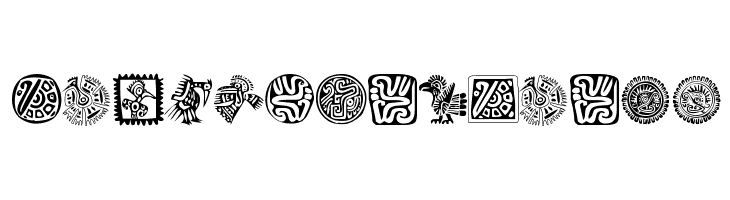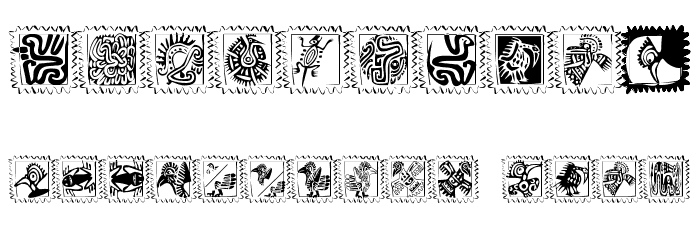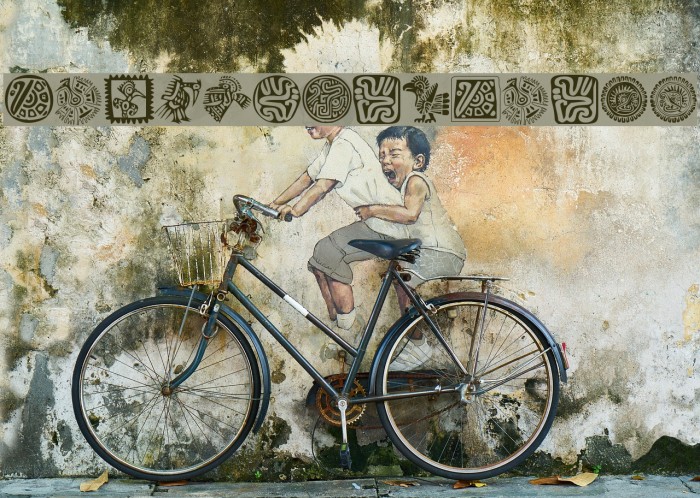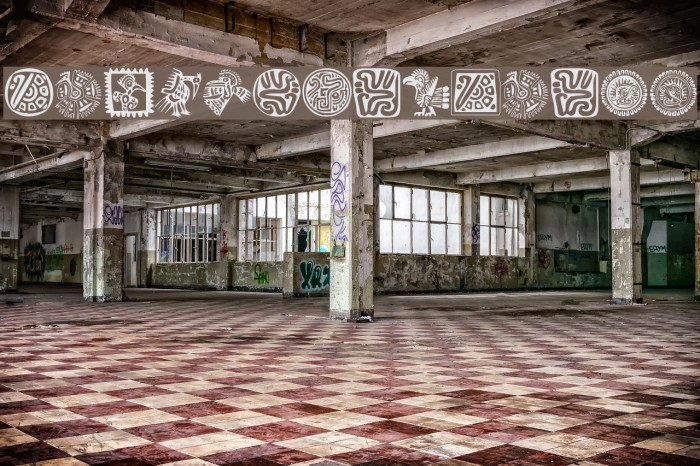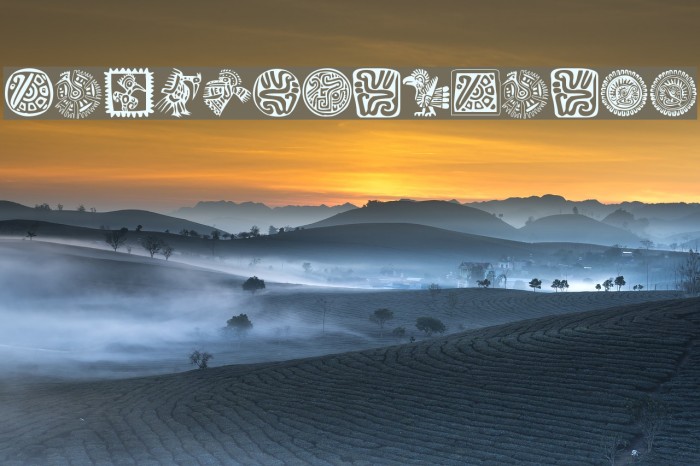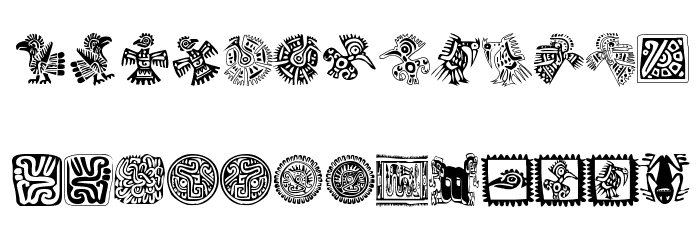
MexiKOrnaments Font
MexiKOrnaments Description
This collection features intricate, decorative symbols inspired by traditional Mexican art and culture. Each character is a unique ornament, showcasing detailed patterns and motifs reminiscent of ancient glyphs and indigenous designs. The style is bold and expressive, with a strong emphasis on geometric shapes and symmetrical forms. The characters are highly stylized, offering a rich visual texture that captures the essence of cultural heritage. This set is perfect for adding an ethnic and artistic flair to any project, providing a visually striking and culturally resonant aesthetic.
Intricate, decorative symbols inspired by traditional Mexican art.
- Proposed Projects: Ideal for cultural event posters, ethnic-themed branding, artistic packaging, and decorative design projects.
- Use Case: Logos, Posters, Artistic Designs